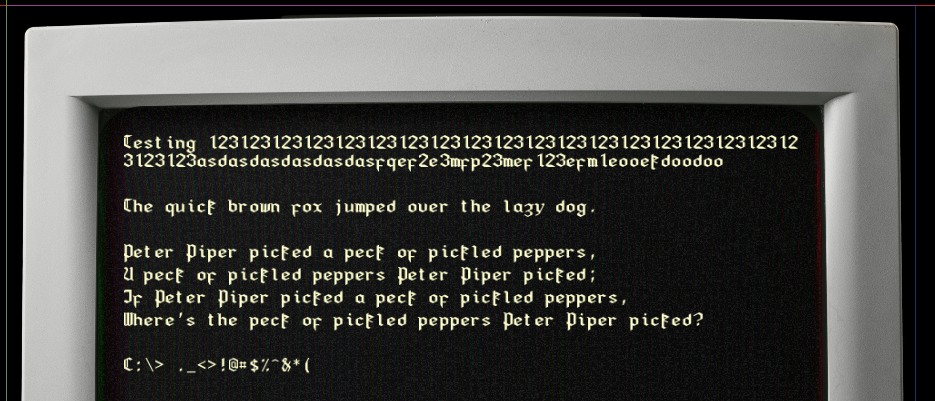
• A font no one asked for, with no discernible use case, Refraktury (inspired by Volker Busse's F25 Blackletter Typewriter font) is a monospaced black letter font, suitable for typesetting math the hard way, illegible code listings, and oddly kerned newspaper marquees. It's a simplified mix of several different styles, mostly Fraktur and Schwabacher. It covers the ISO Latin-1 block, because why in the world would you care if it covers anything else?!
It looks good; the mix of styles is rather successful, 'opening' it to make reading it easier than many of the blackletter fonts. I like the F,X,z, ß and £. But I have problems with the S as it looks too much like the 6, and I found that the monospace made my long sample text rather 'jumpy'. Overall a  pleasing design though.
Great, but capital S looks way too much like capital G. Otherwise, great job. 9/10
I'm a sucker for unconventional monospaced fonts, so I find this pretty awesome.
I've tweaked the S as per commenter request. Since I'm not really trying to stay true to any one blackletter style to begin with, it's a reasonable request.
I have considered doing a proportional version, but I imagine it would do away with the intentional oddity. Thumbs up/down?
New S looks great, thanks :) Try a proportional one if you want to, nobody's stopping you, although it might look a bit generic compared to this one, but hey, it's your font.
Very nice, but unfortunately seems not to be compatible with Windows Terminal
Asked for, sought after, and as far as I can tell darn near perfect for what I wanted to do.
The lowercase k is a bit hard to read at this size, that's about the only real readability concern I have.